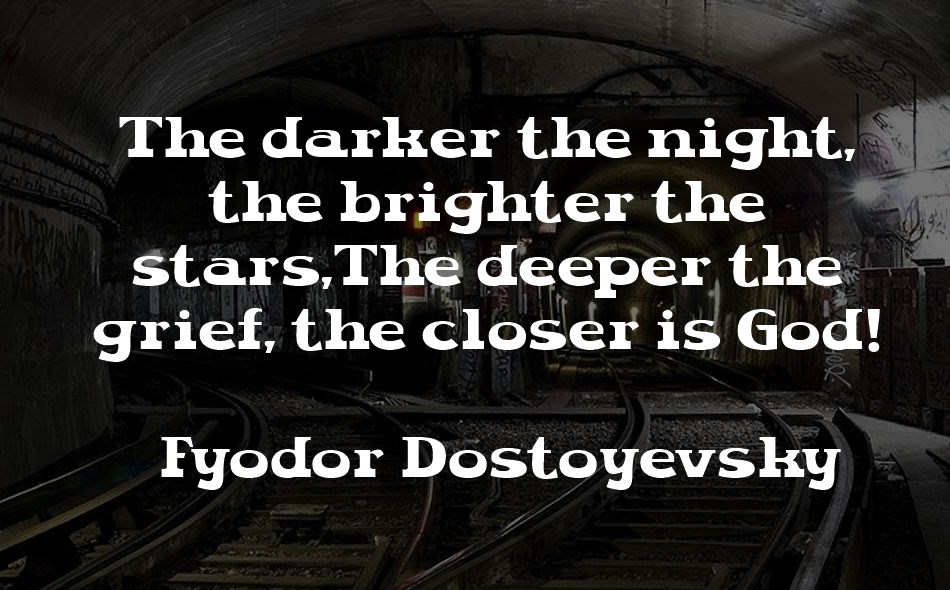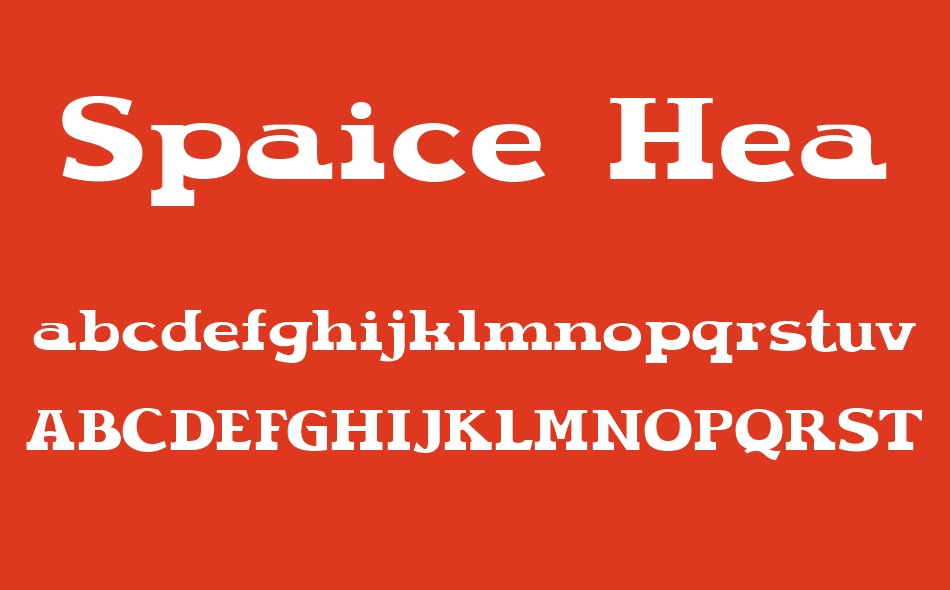
Spaice font
Spaice is a classic retro style typeface that has a big, bold and strong impression but still has a dynamic, retro, classic look. Spaice is suitable for your poster design, large captions, your flyer designs, stickers, badges, labels and more. Complete your font collection now with this unique typeface.